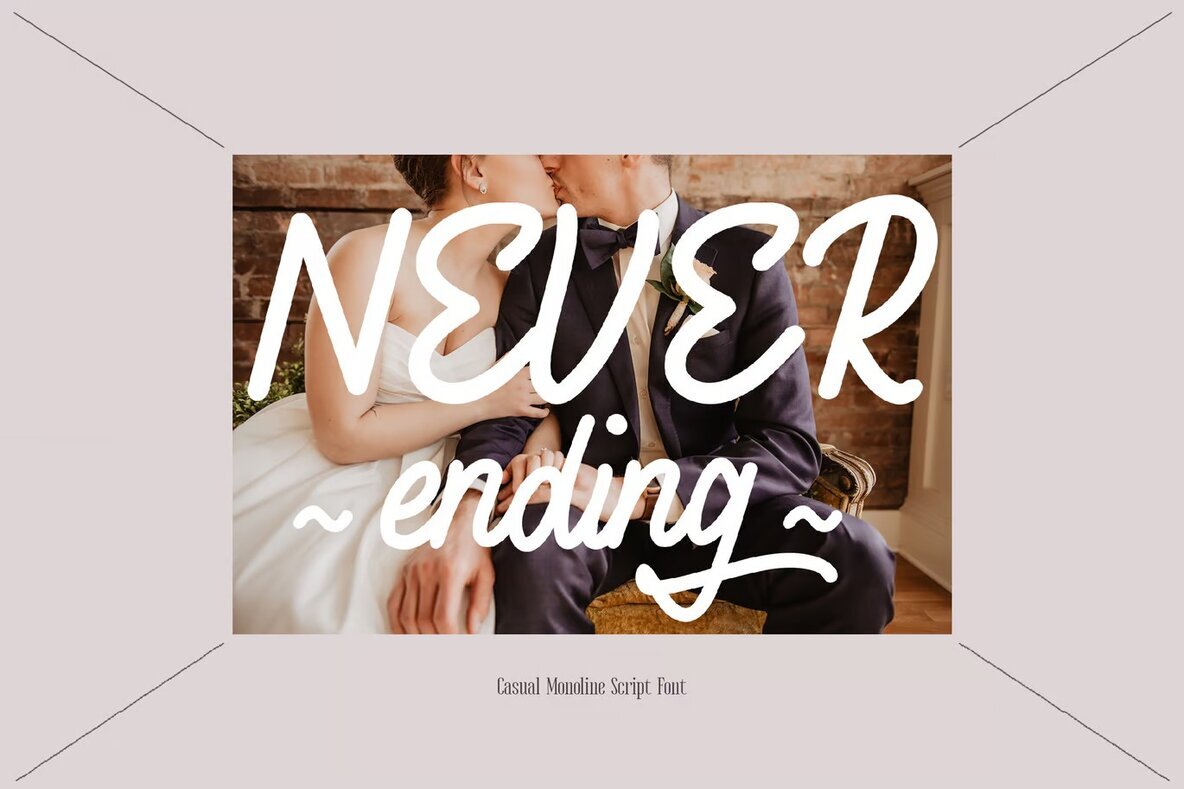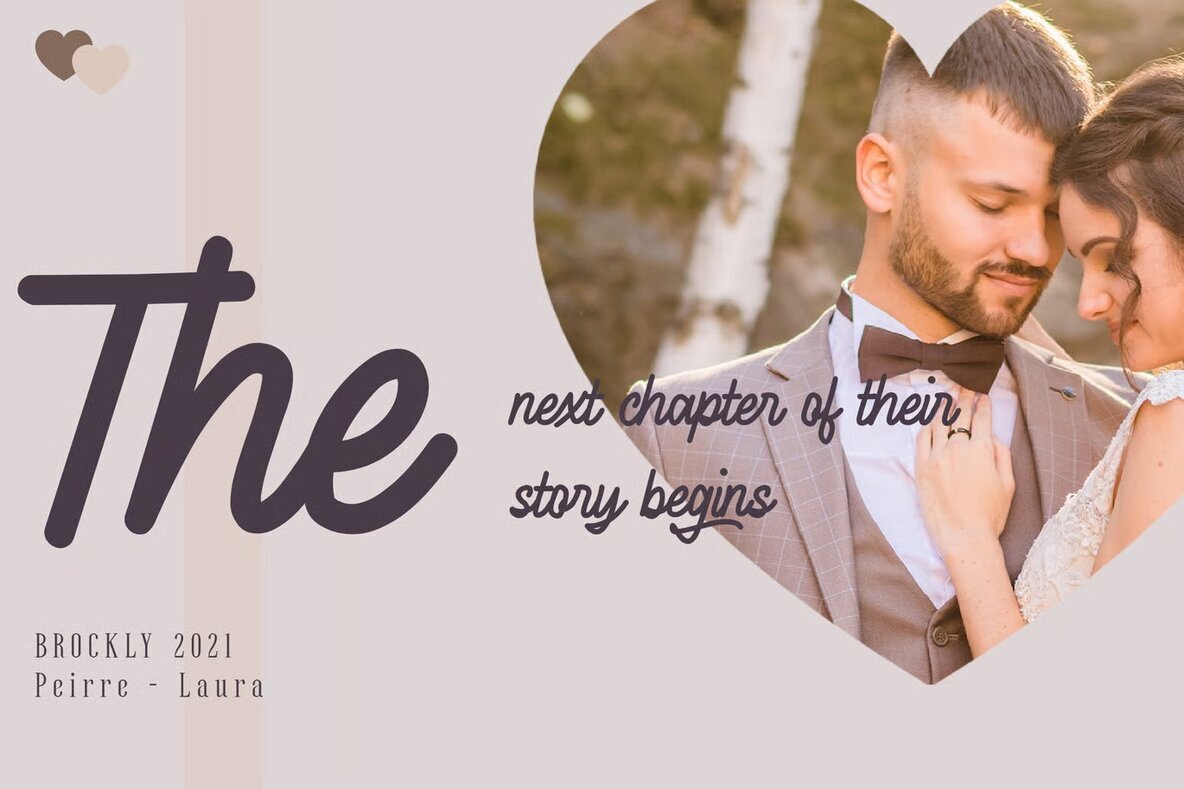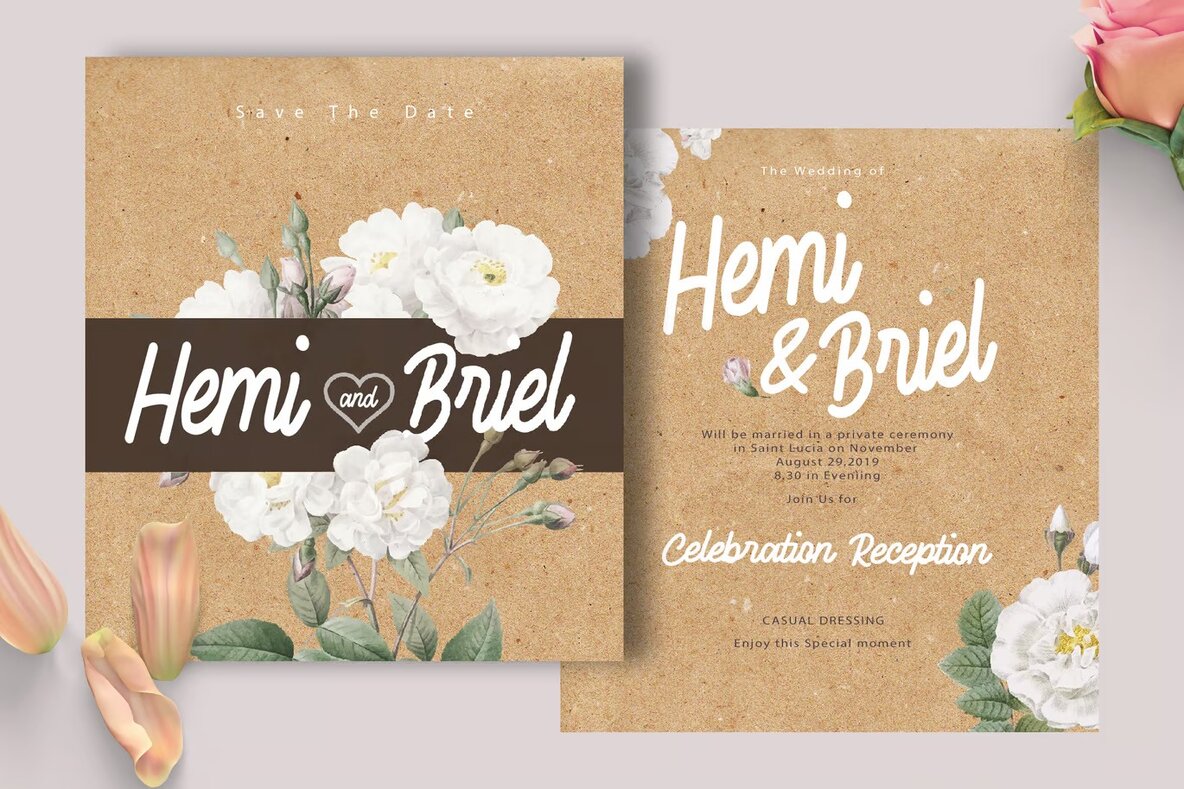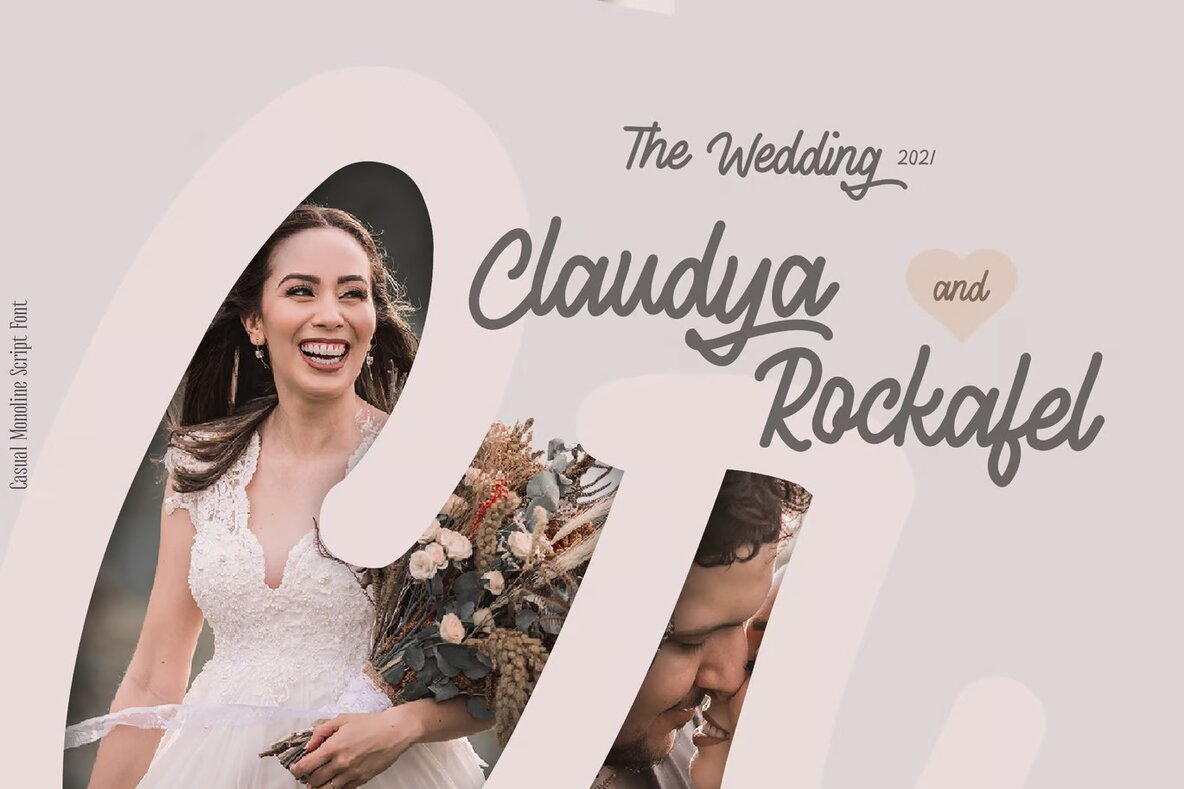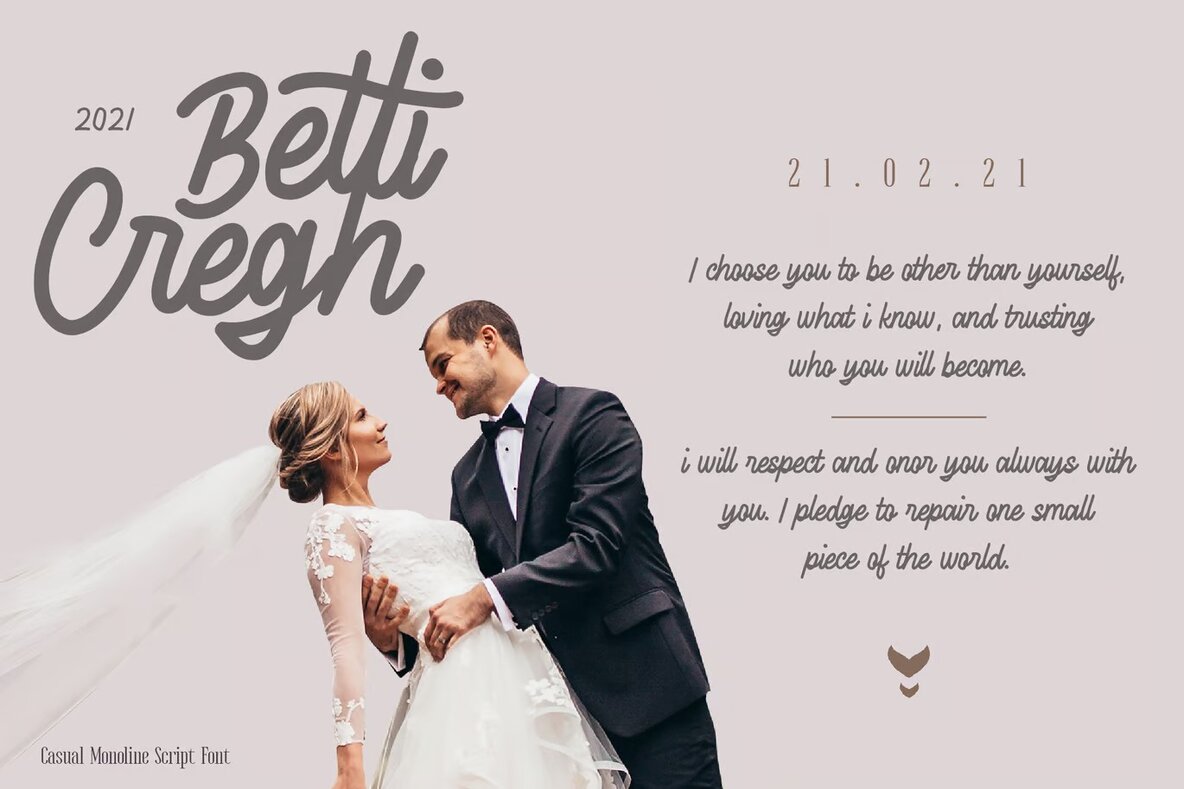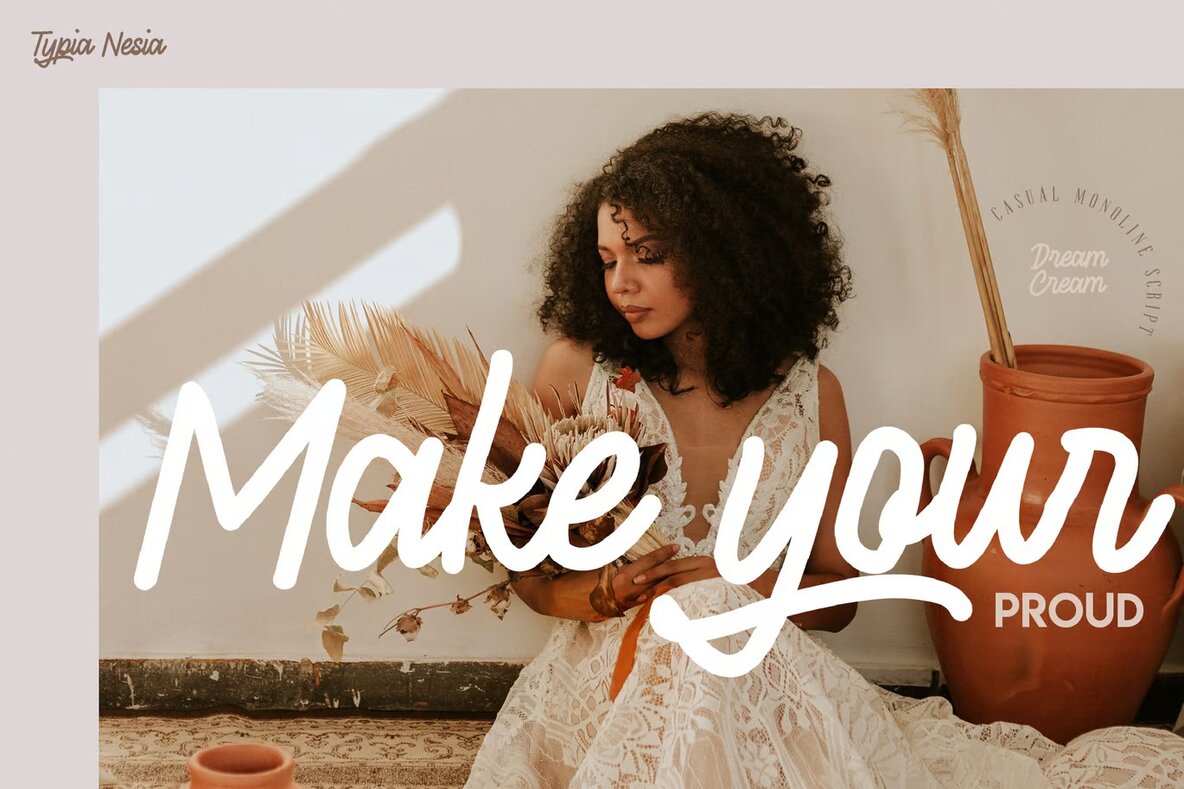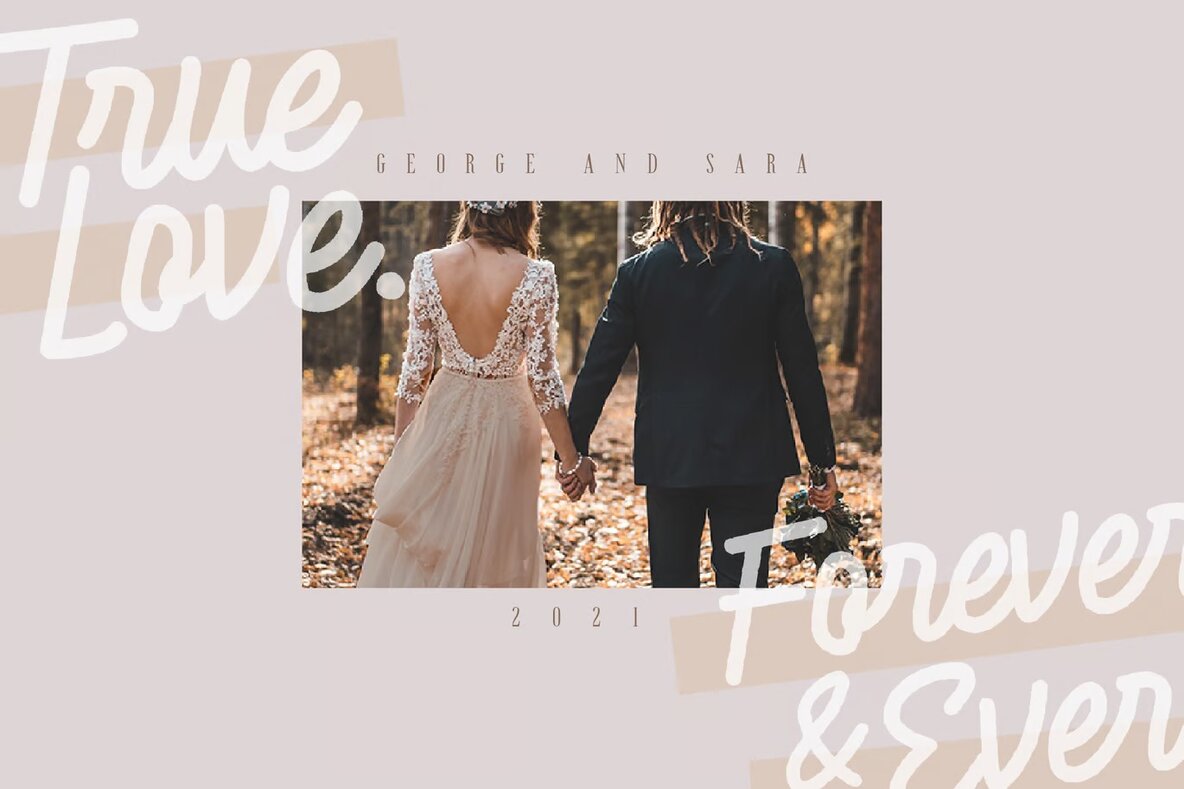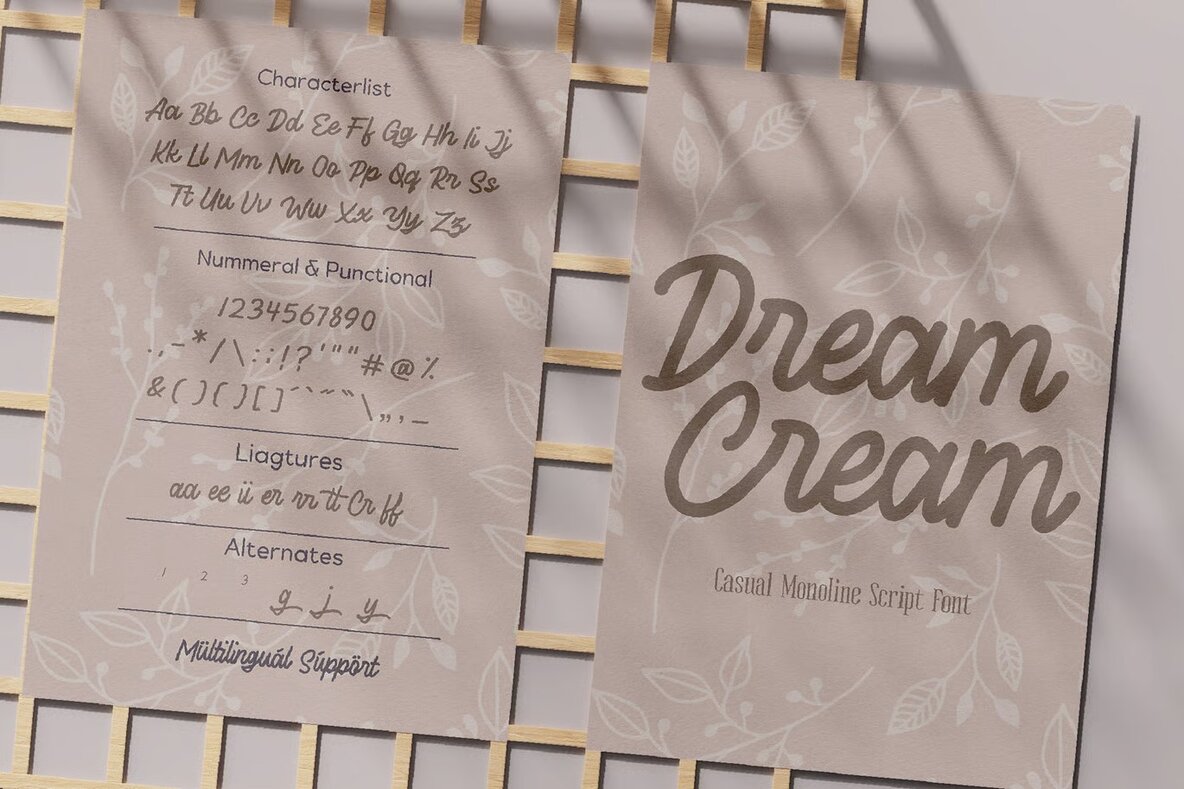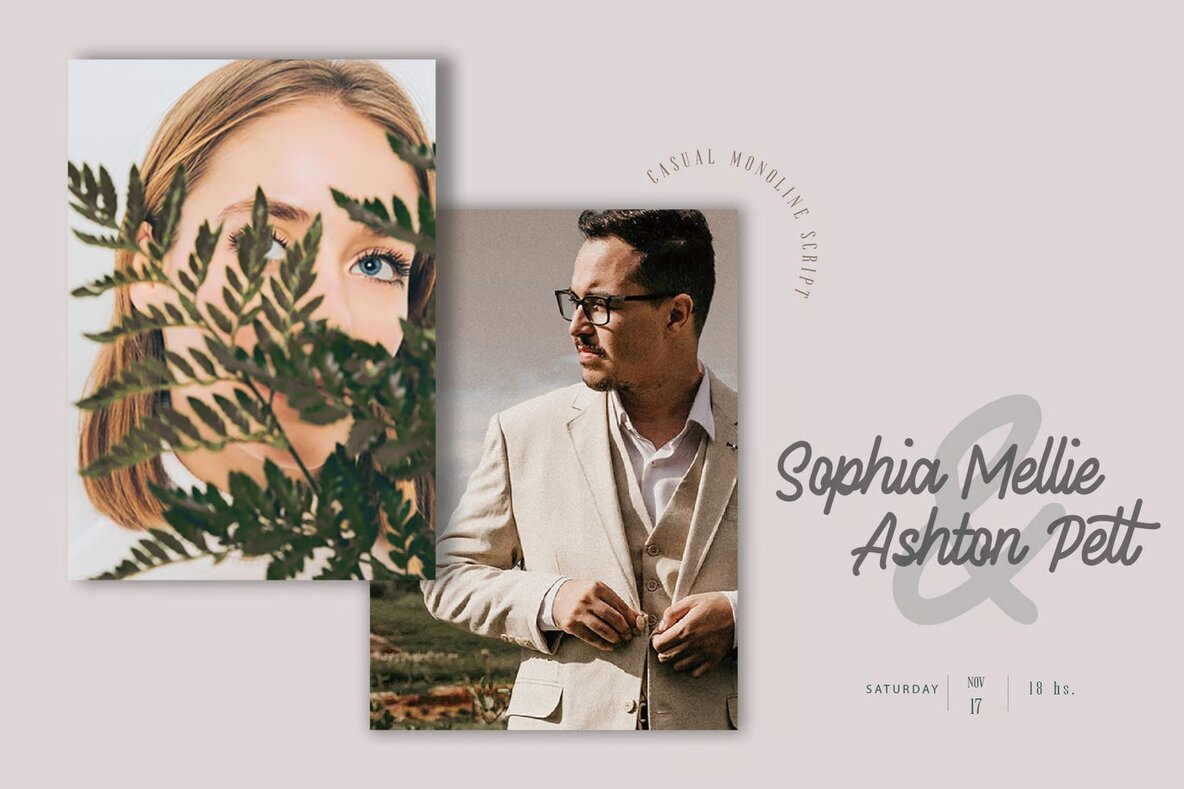
Dream Cream Font
Dream Cream is a sophisticated handwritten monoline script font that exudes casual elegance and beauty. Its unique flow and organic style make it an ideal choice for a variety of design projects that require a personal touch. From creating wedding invitations, greeting cards, and social media graphics to branding for feminine products, this font seamlessly adapts to numerous design contexts. Its natural look is also well-suited for photography branding, blog designs, and modern advertising, adding a sense of authenticity and charm to the overall aesthetic.
In addition to its versatility in design applications, Dream Cream is perfect for personalizing items such as custom mugs, pillows, and t-shirts, or for bringing a special touch to home decor and art quotes. This font's versatility and style make it a go-to choice for developing eye-catching book covers, stationery, and materials for special events like birthdays. With Dream Cream, achieve a handwritten feel that stands out and communicates the desired message with elegance and subtlety.